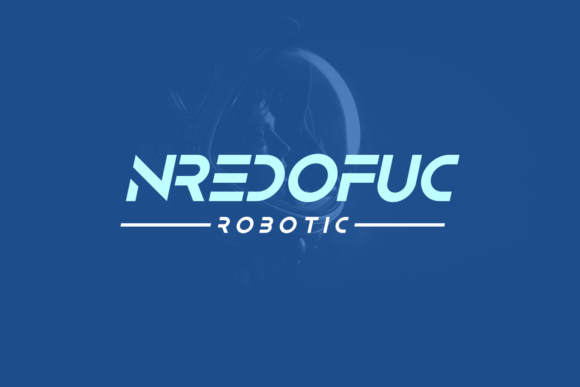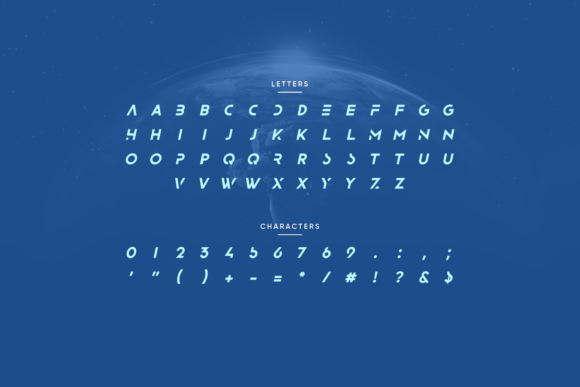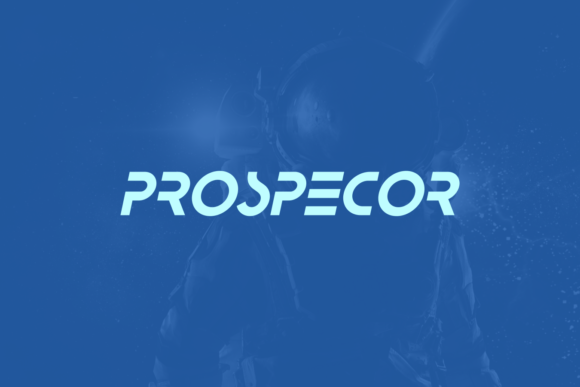
Introduction to Preospec Font
Preospec is a modern, elegant and futuristic look font.
This font would be ideal for writing web designs, business cards, logo, magazine or just about anything else that requires a unique touch With a sophisticated concept and very elegant shape that will look modern on future technology designs, don’t hesitate to have this font.
Key Features of Preospec Font